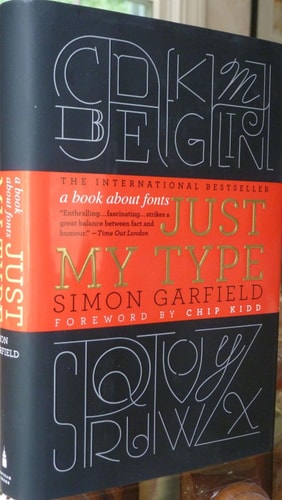
Just My Type: A Book About Fonts
A hugely entertaining and revealing guide to the history of type that asks, What does your favorite font say about you?
Fonts surround us every day, on street signs and buildings, on movie posters and books, and on just about every product we buy. But where do fonts come from, and why do we need so many? Who is responsible for the staid practicality of Times New Roman, the cool anonymity of Arial, or the irritating levity of Comic Sans (and the movement to ban it)?
Typefaces are now 560 years old, but we barely knew their names until about twenty years ago when the pull-down font menus on our first computers made us all the gods of type. Beginning in the early days of Gutenberg and ending with the most adventurous digital fonts, Simon Garfield explores the rich history and subtle powers of type. He goes on to investigate a range of modern mysteries, including how Helvetica took over the world, what inspires the seeming ubiquitous use of Trajan on bad movie posters, and exactly why the all-type cover of Men are from Mars, Women are from Venus was so effective. It also examines why the "T" in the Beatles logo is longer than the other letters and how Gotham helped Barack Obama into the White House. A must-have book for the design conscious, Just My Type's cheeky irreverence will also charm everyone who loved Eats, Shoots & Leaves and Schott's Original Miscellany.